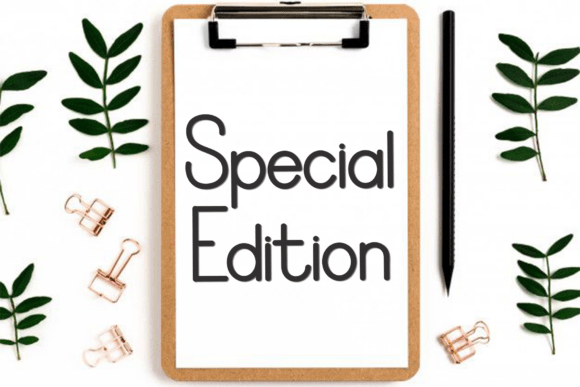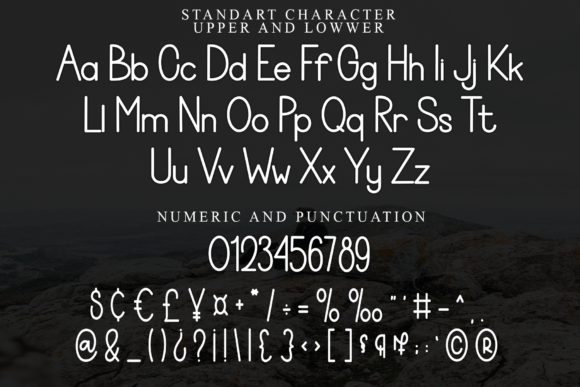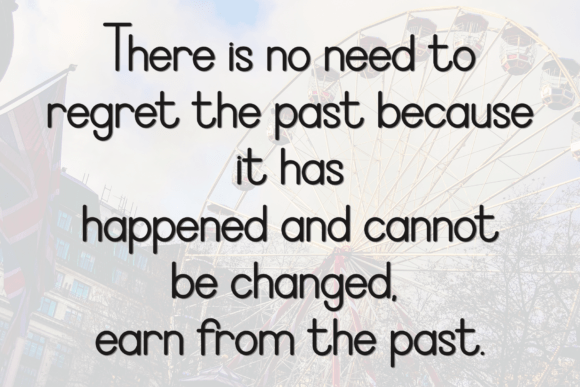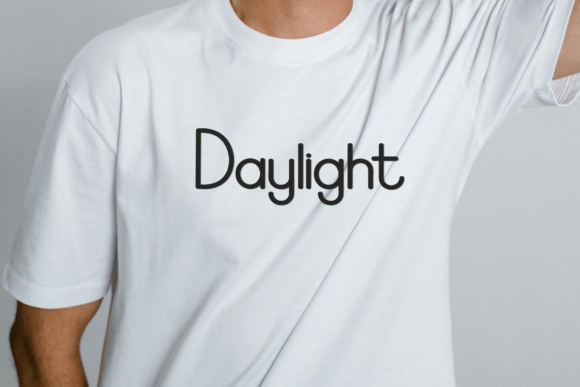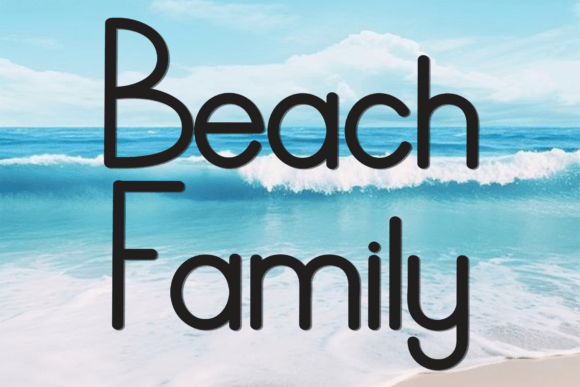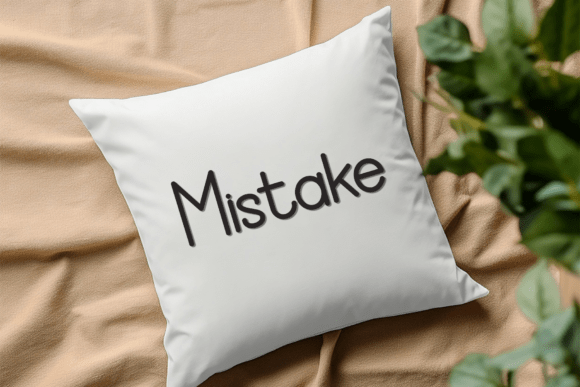
Introduction to Monday Comes Font
Have you ever stared at a blank canvas, trying to find the perfect font to bring your creative project to life? The search can be daunting, but what if you stumbled upon a font that captured your imagination and elevated your design to new heights? For designers and creatives, finding the right font can be a game-changer, and that’s exactly what the Monday Comes Font promises to deliver.
This beautiful and eye-catching font is designed with a soft, unique touch that sets it apart from the rest. With its distinctive strokes and versatile character, the Monday Comes Font is the perfect design resource for anyone looking to add a touch of sophistication to their projects. Whether you’re working on a design project, crafting a handmade item, or simply looking for a high-quality font to enhance your creative work, the Monday Comes Font is an excellent choice.
Key Features of Monday Comes Font
- High-quality font with a transparent background, perfect for creative projects that require a clean and minimalist design.
- Designed to be versatile and adaptable, Monday Comes Font is perfect for use in logos, branding materials, and other creative projects.
- Unique characteristics include a modern sans-serif design and a range of weights and styles to suit different design needs.
Honest Review: Monday Comes Font
Here are some things that I think work well with Monday Comes Font:
- ✨ Unique and quirky design: This font has a fun and playful vibe that’s perfect for adding some personality to your designs.
However, I do have some concerns:
- ⚠️ Limited character set: While the font has a wide range of characters, I did notice that it’s missing some special characters and punctuation marks.
- ⚠️ Not suitable for body text: While the font is perfect for headlines and titles, it’s not the best choice for body text due to its quirky design.
Monday Comes Font